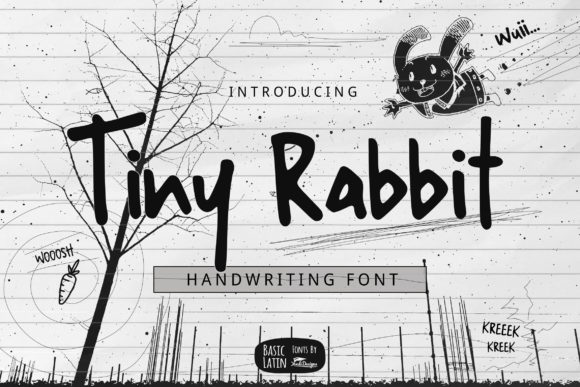
Tiny Rabbit Font, a creation of YandiDesigns, is a remarkable script font that exudes playfulness and an earthy charm. With its captivating flow and endearing nature, Tiny Rabbit is poised to transform your designs into whimsical works of art.
Indulge in a world of limitless creativity as you weave your words together with Tiny Rabbit. Its enchanting characters dance across the page, inviting you to express yourself in a style that is uniquely yours. From heartfelt letters to playful invitations, this font will add a touch of magic to every project.
Escape the mundane and embrace the extraordinary with Tiny Rabbit. Its versatility knows no bounds, making it the perfect companion for a myriad of design adventures. Whether you're crafting logos that leave a lasting impression, designing websites that captivate the senses, or creating social media posts that spark joy, Tiny Rabbit will elevate your creations to new heights.
Unleash your imagination and let the power of Tiny Rabbit ignite your design dreams. Its playful spirit will add a touch of whimsy to any project, while its elegant curves evoke a sense of warmth and charm. Experience the boundless possibilities and transform your designs into enchanting masterpieces with Tiny Rabbit Font.